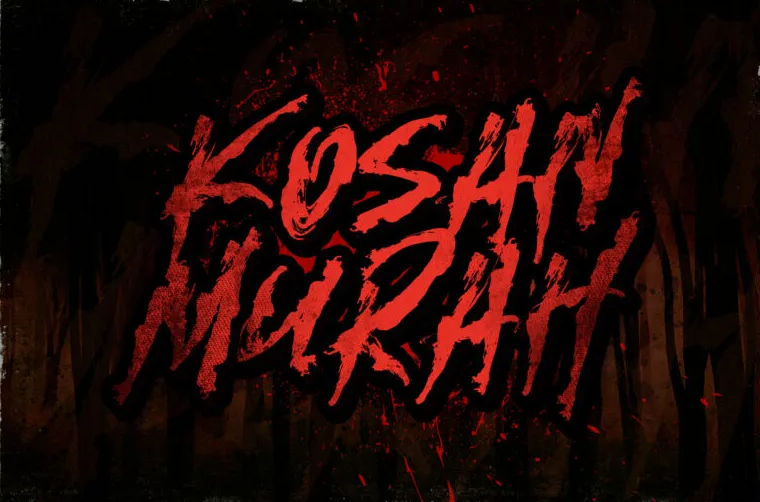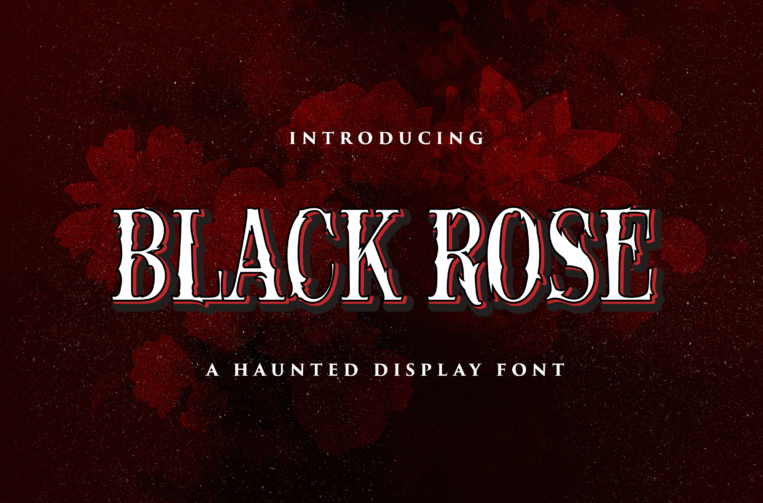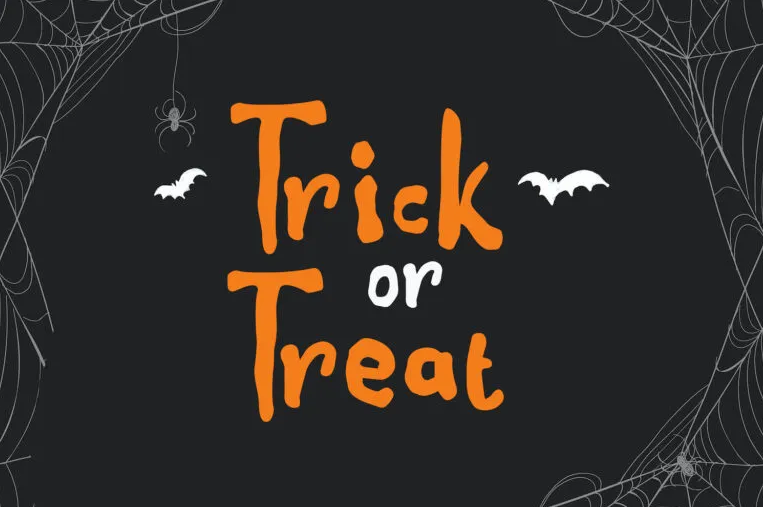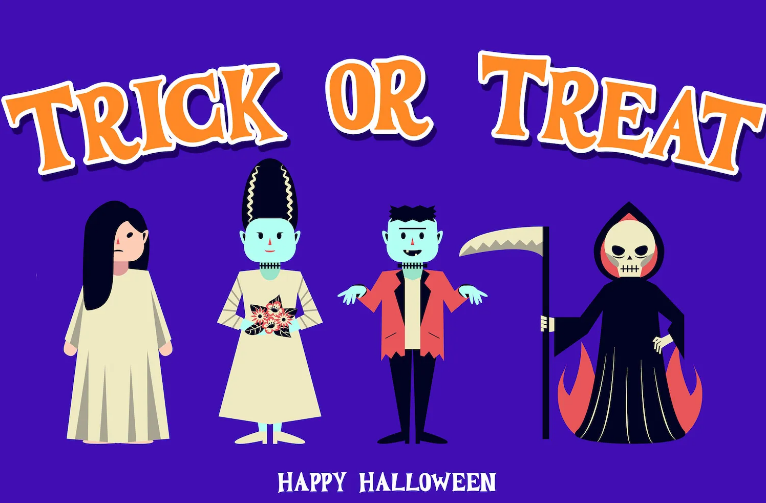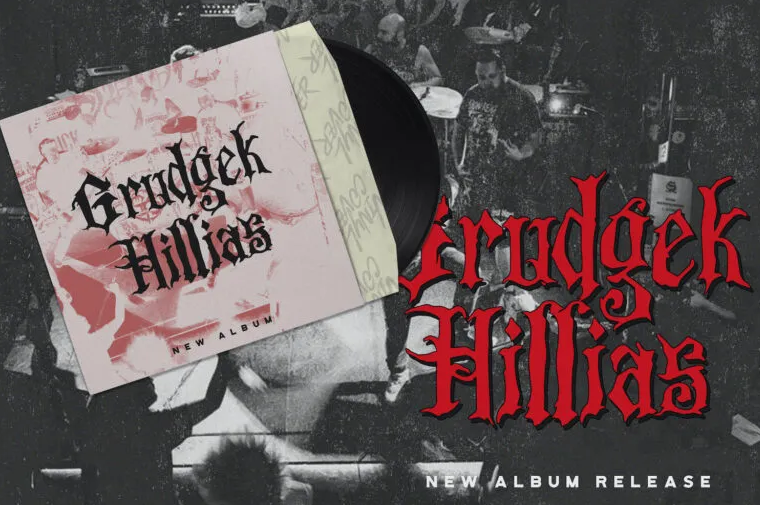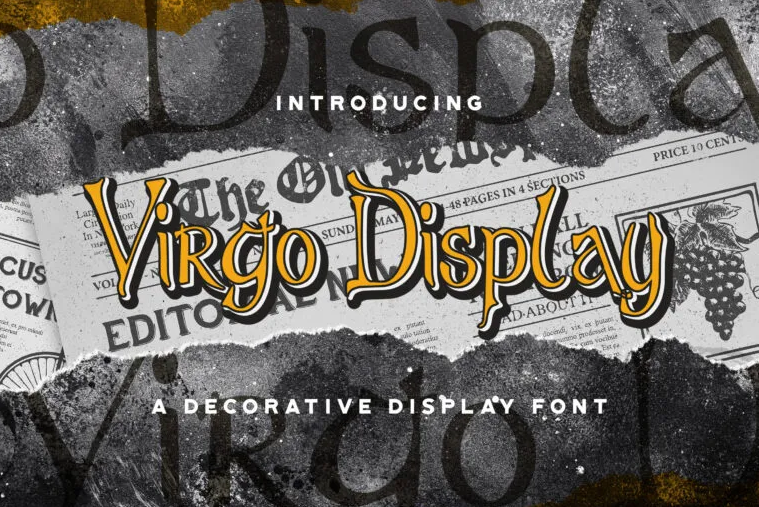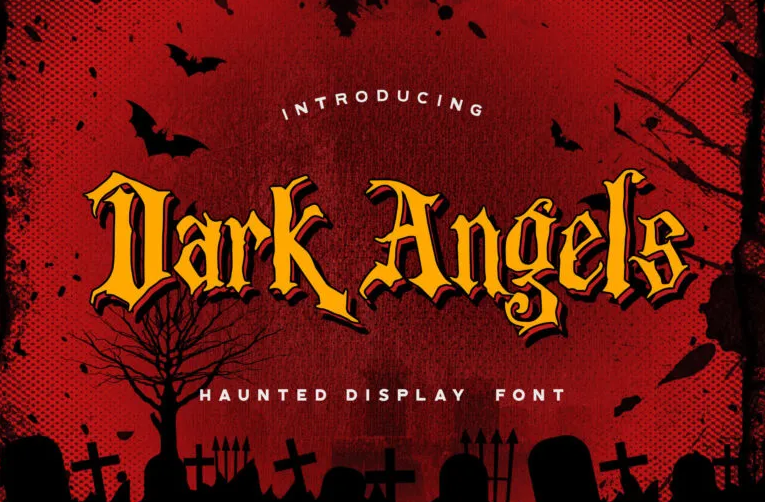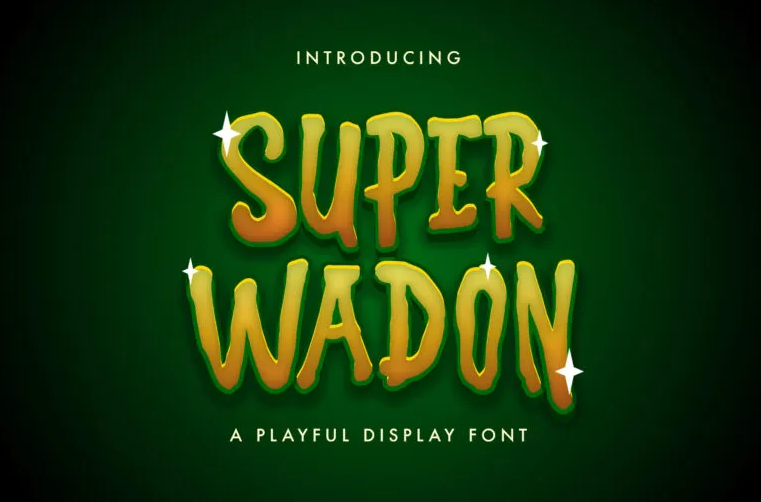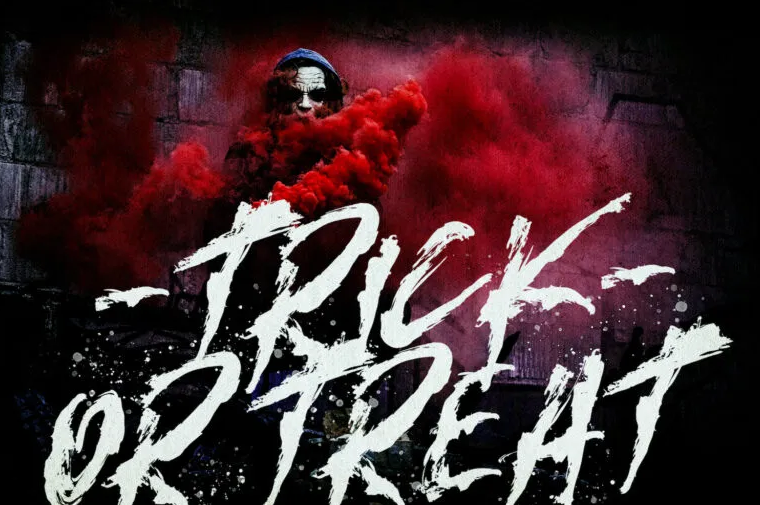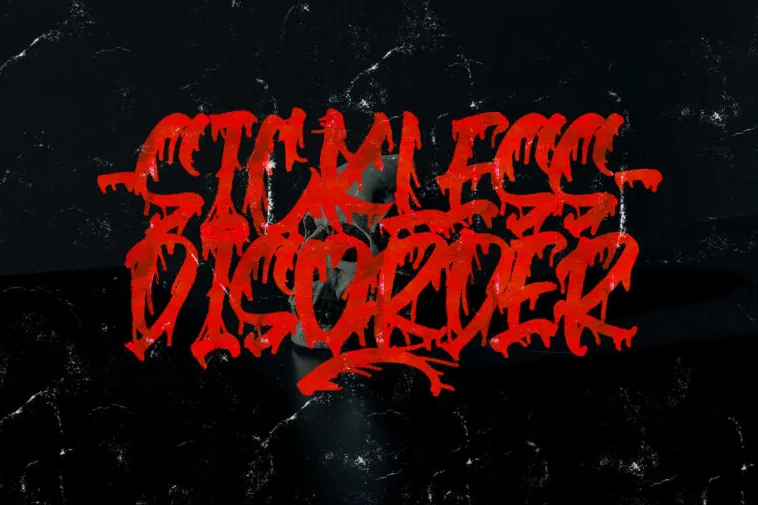
10 Collections of Horror Font for Your Scary Design Needs
Time goes by and you might just realize that Halloween season is coming up next month. So, are you currently looking for the ideal horror font to use in completing your scary or Halloween projects? Luckily, you have arrived at the right site.
In this review, we will feature 10 collections of the best horror fonts with a wide range of designs to fulfill your scary or Halloween project needs. Then, let’s get started and explore your ideal horror font!
10 Best Horror Fonts to Choose From
We know that you only have a few times to choose the ideal horror font. Thus, without further ado, please check the collections of the 10 best horror fonts from the list below. If you are interested in one of the below horror fonts, don’t hesitate to download font horror that suits your preferences.
1. Nightmare
Nightmare
As the name suggests, Nightmare is a horror-style font that can depict the dread of your design. Once you look at it, you will find that each end of this font features a finger display that seems ready to give you fear and terror.
Nightmare
With such designs, Nightmare is great for use as a brand logo or cover for horror or thriller books.
2. Kosan Murah
Kosan Murah is a horror font that beautifully combines decorative horror with great style and precision. You can see unruly indications of bloodstains and ink splatters.
Kosan Murah
So, if you’re looking for the perfect horror font to go with your Halloween banner or cover project, Kosan Murah is probably the best choice.
3. Jacmax
Jacmax
If you’re in search of a horror font to complement your movie or game cover project with a murder or psychopath theme, Jacmax might be a good choice.
Jacmax
Featuring a blood-like font style with knife slashes, this font is definitely going to be ideal for your designs in depicting fear and cruelty.
4. Bustery
Next up is Bustery. It is a horror font that would be perfect for you to use in a scary-style product design or Halloween greeting card.
Bustery
Coming with a bold font style with slight shadows on each letter, you can let Bustery do the work in embellishing your horror design projects.
5. Virgo Display
Are you planning to create sin-themed quotes or designs for the names of historical places? Or are you searching for the right font to fulfill such needs? If so, you will never regret choosing the Virgo Display.
Virgo Display
This horror font brings a unique style that is both curvy and clear, lending a stunning look to your project.
6. Super Wadon
Super Wadon
The sixth on the list is Super Wadon. Let us tell you that Super Wadon is the perfect font for those of you who are in the project of creating children’s Halloween poster designs or children’s horror stories.
Super Wadon
With each letter stylized like a trick or treat, this font can add excitement to any of your designs.
7. Dark Angels
Dark Angels
Choosing the right font for music concert poster design can be a game changer. Amazingly, Dark Angels is a font that can emphasize the design of your music concert poster for the upcoming Halloween season.
Dark Angels
In addition, Dark Angels is also a perfect font for any apparel design due to its unique mysterious style like a witch.
8. Black Rose
Black Rose
Black Rose is a horror font with retro inspiration and a classy design. Featuring three color layers, this font is perfect for vintage-inspired designs. Therefore, it is a wonderful choice for book covers, movie posters, as well as writing on apparel, such as t-shirts and hats.
Black Rose
9. Sangkury
Sangkury
When designing, you should always be aware that emotion is the key to a good design. Well, if you want to give a scary effect and emotion to your design, Sangkury, the horror font is an ideal choice.
Sangkury
This font is spooky-looking and ideal for Halloween designs, be it movie posters, magazines, event planning, branding, and more.
10. Blackink
Blackink
Blackink is an exceptional hand-brush look font that has an authentic splatter brush feel. You can use it for all your scary craft projects, such as Halloween cards, horror movie posters, and more!
Blackink
Blackink is a unique and eye-catching dingbat font to embellish all your design projects.
Ready to Welcome Halloween With Your Chosen Horror Font?
Those were 10 collections of the best horror fonts that you can choose according to the needs of your design project in the upcoming Halloween season. Is there one that caught your attention?